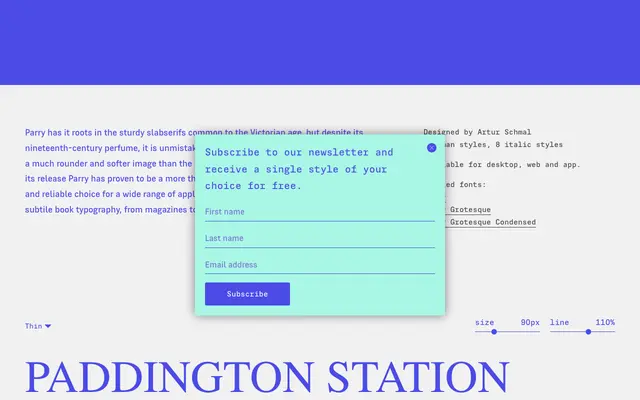
Parry Condensed
Original Type · Artur Schmal
A condensed slab serif by Artur Schmal that takes Victorian-era slab forms and softens them into something rounder and more adaptable across eight weights.
Where Victorian slab serifs tend toward rigidity, Parry Condensed rounds off the edges to produce a warmer, more flexible cut. Eight weights from UltraThin to ExtraBlack are paired with a full set of italics, giving the family breadth for everything from text-weight body copy to heavy display settings. The condensed proportions suit editorial layouts, advertising and corporate identity work where space is at a premium.
Rooted in Victorian-era slab serifs but drawn with a rounder, softer quality that distinguishes it from the rigid slab forms of the nineteenth century. The condensed cut retains the slab serif structure across eight weights with matching italics.